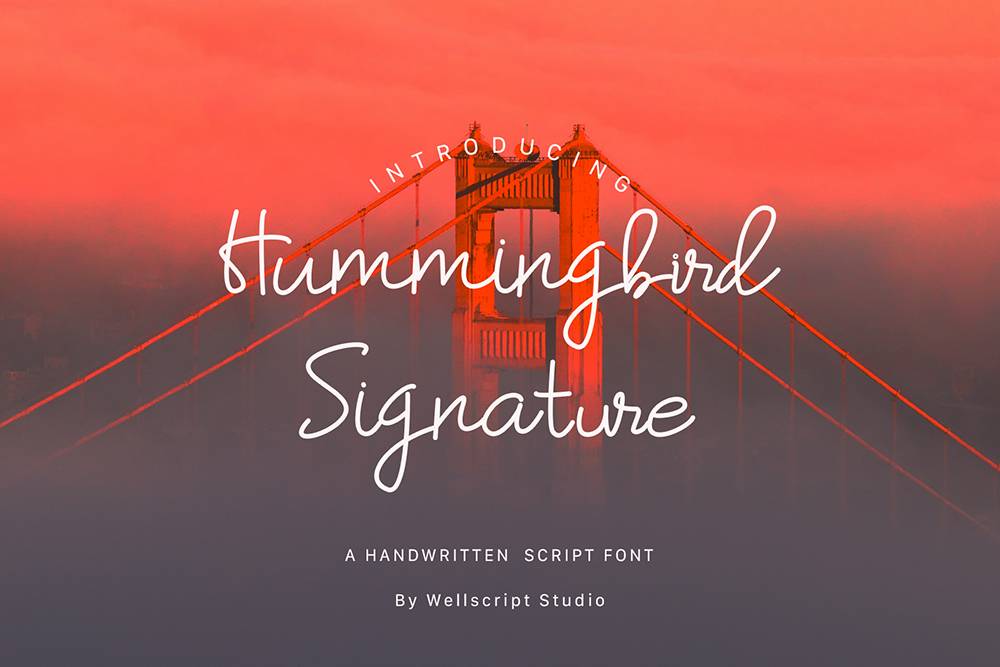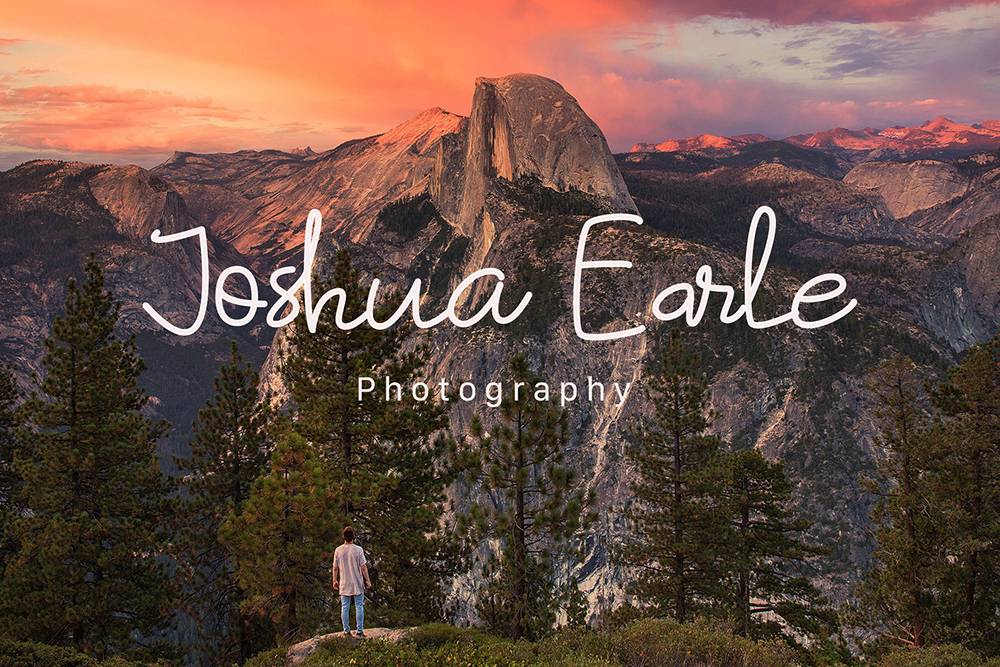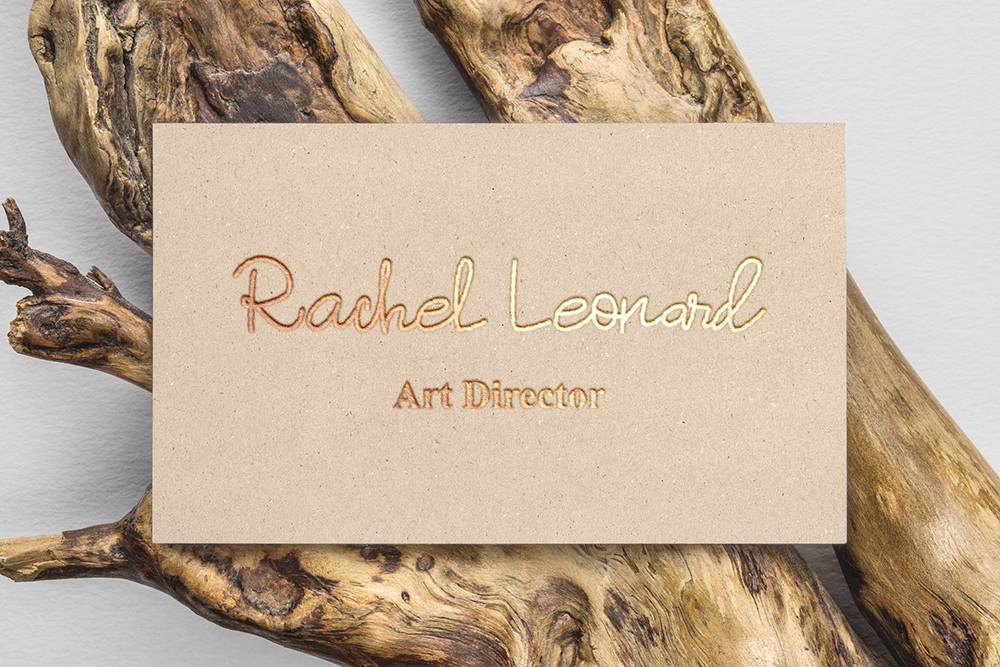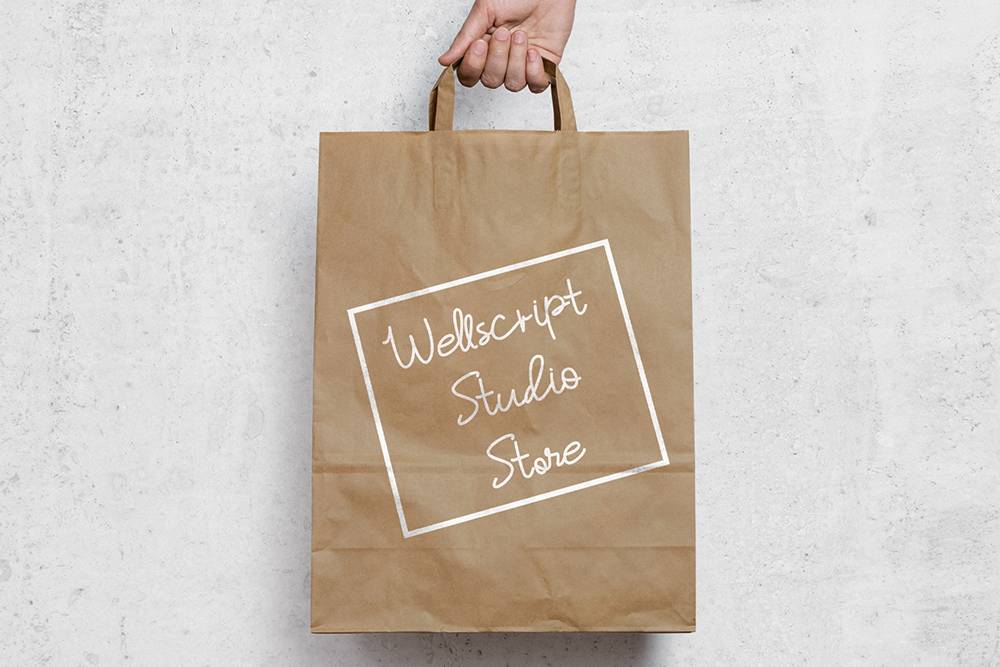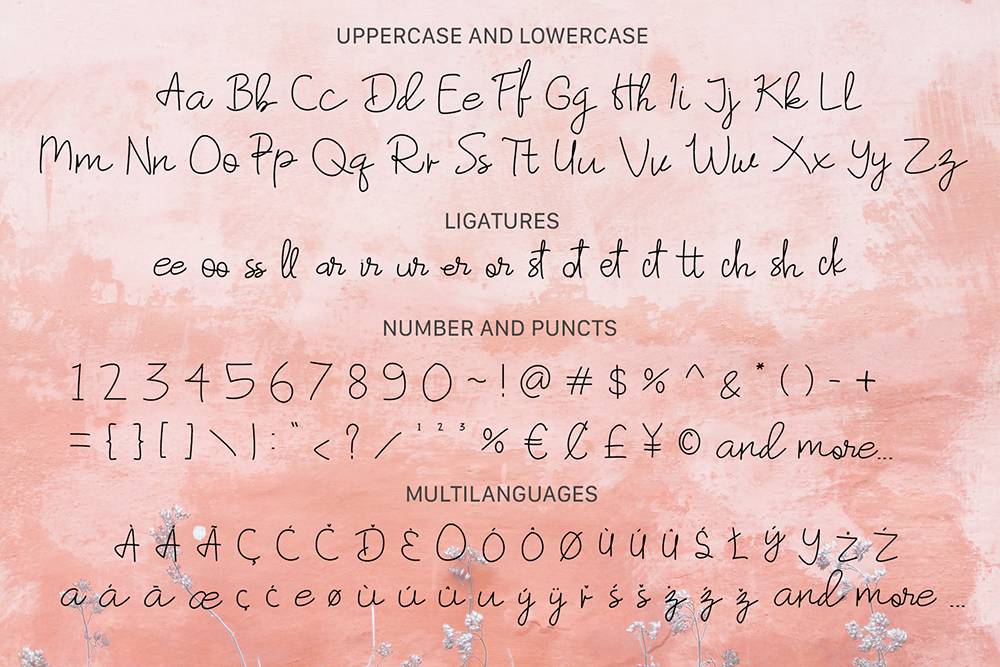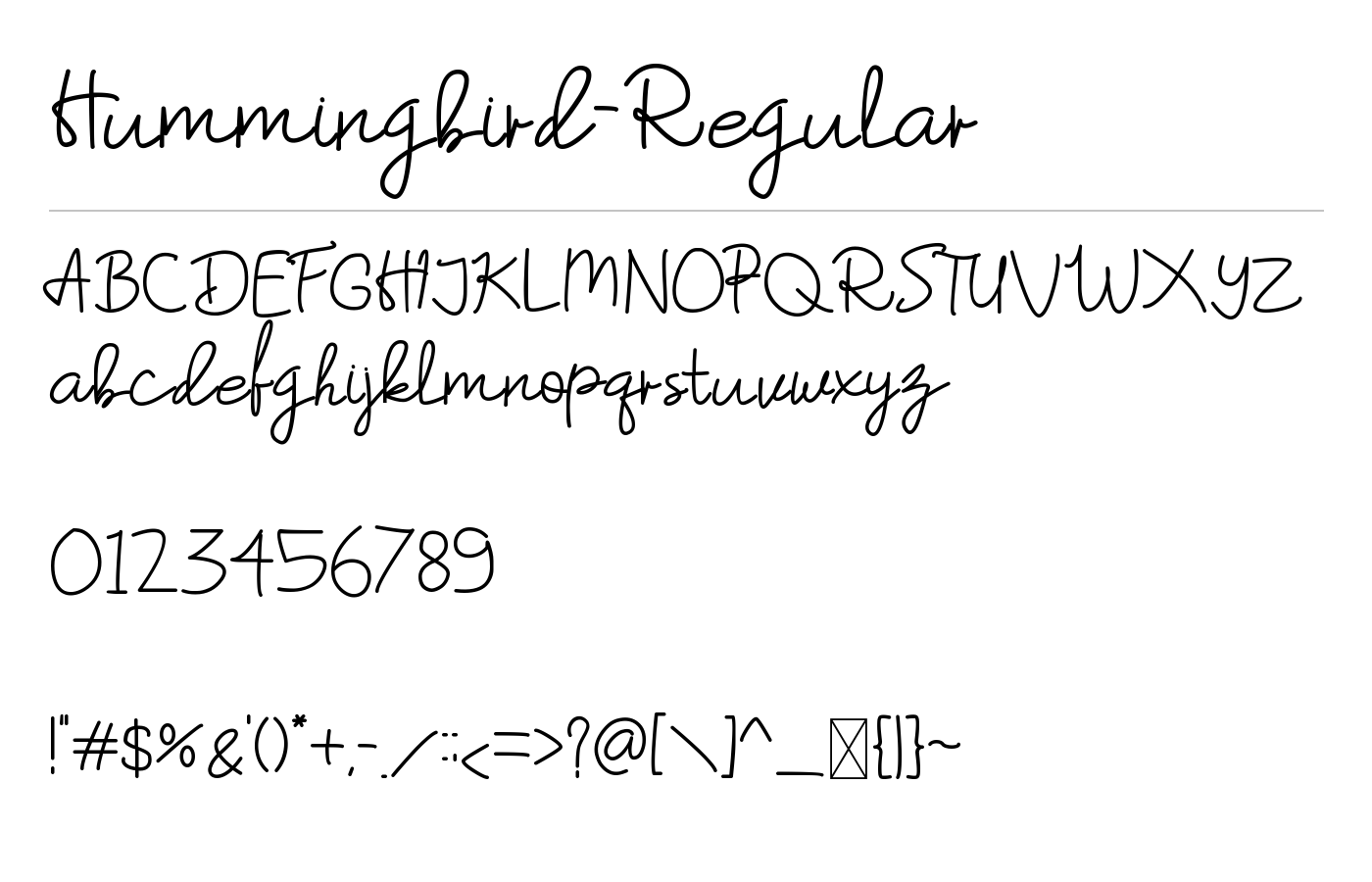
Humming Bird Script Font
Humming Bird Script Font is a handwritten signature font with a natural & simple style. It is perfect for personal branding and project. Humming Bird Script Font is well for many applications such as branding identity, wedding invitation, event flyer, and any projects that need handwriting font.